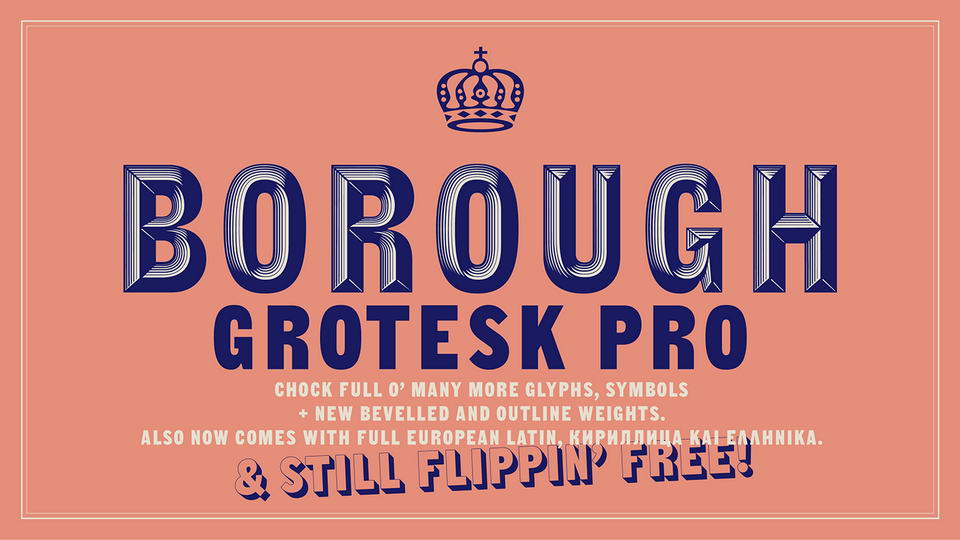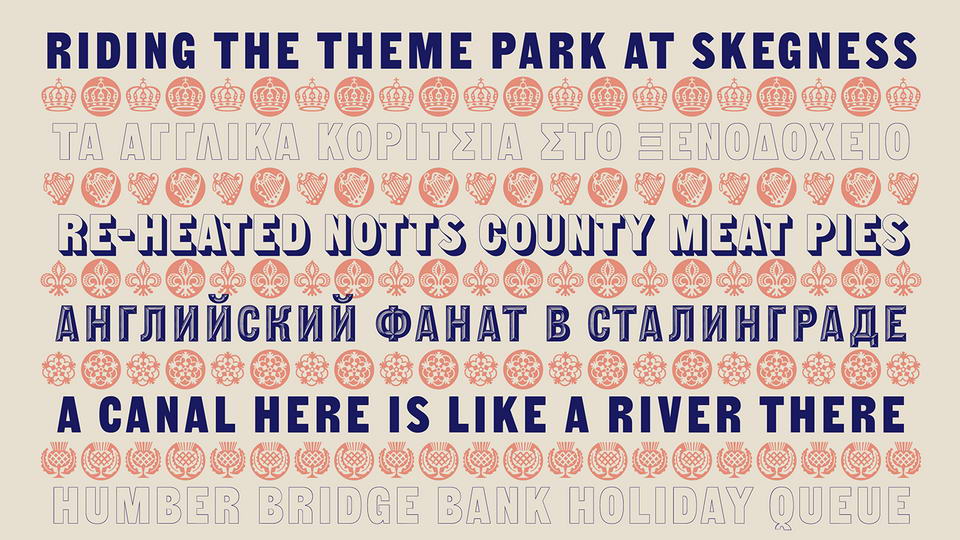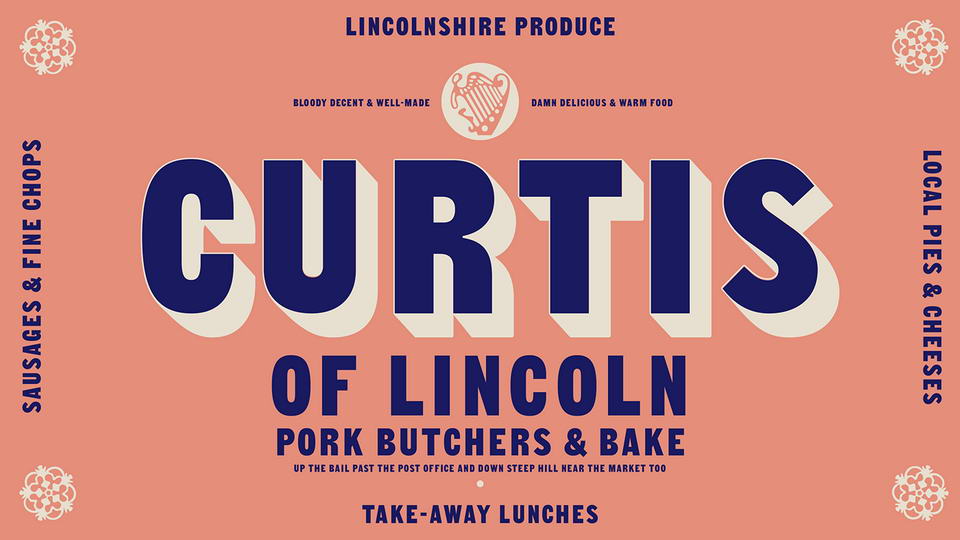
Borough Grotesk Pro a free font family is an updated version of the sans-serif shaded Borough Grotesk bunged-out for free last year. It now has all the upper-case Euro-Latin characters, Cyrillic and Greek (my first shot at Greek, so if the Greek is shite then IM me and you can teach me something). Plus an outline and engraved weight. This makes for a nifty set of layer-able, gaslight-style fonts. There’s also a lot more glyphs and some symbols too, like crowns, thistles and roses … which I half-inched from the Stephenson Blake 1953 catalogue, the source of the shaded original letters. Regardless Borough is STILL FREE!